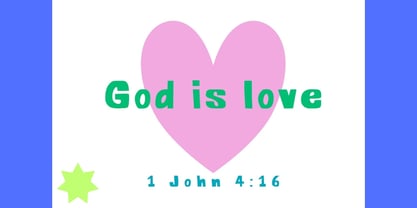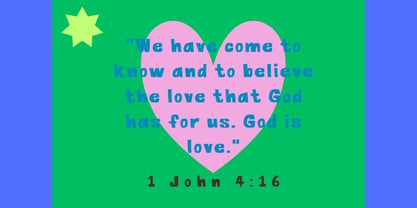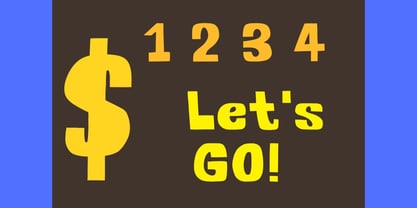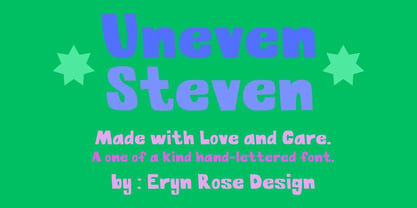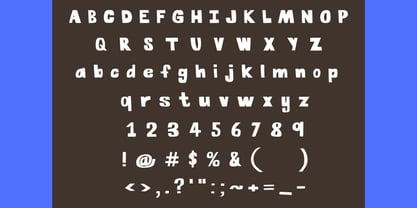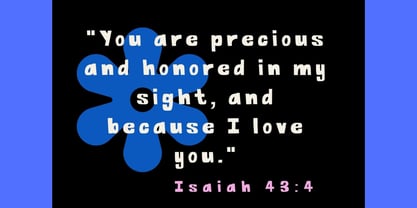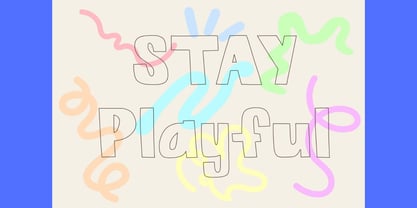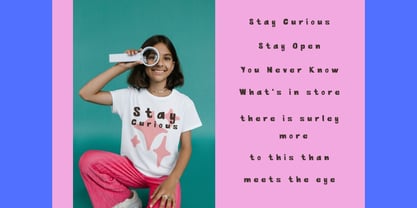
Uneven Steven
by Eryn Rose Design
The Uneven Steven Font Family was designed by Eryn Rose Tomlinson and published by Eryn Rose Design. Uneven Steven contains 1 styles. More about this family
Uneven Steven, Thick and Thin - a refreshingly authentic and quirky hand-lettered font , sure to charm and invite your viewers with its fun and warm aesthetic, full of personality.
This fun and lively font is perfect for children's apparel and product design , label design , event or sale design ... the possibilities are great. If you are looking for a uniquely hand-lettered font that contains charming imperfections and unmistakable warmth, look no further.